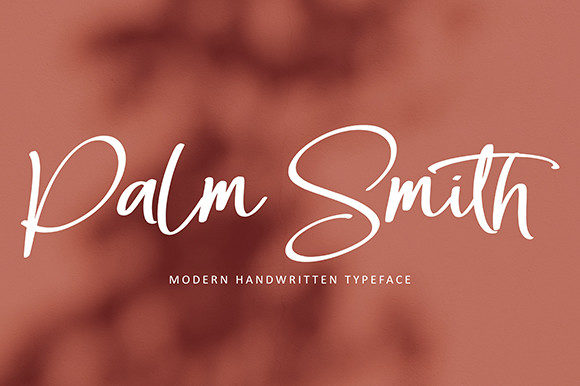
Palm Smith Font: Adding a Touch of Romance to Your Designs
In the world of typography, fonts play a crucial role in conveying the tone and personality of a design. Among the numerous fonts available, Palm Smith stands out as a charming and versatile handwritten font that can elevate your projects to a new level. In this article, we’ll explore the features, applications, and benefits of using Palm Smith font in your designs.
What is Palm Smith Font?
Palm Smith is a beautiful, enchanting handwritten font that exudes a sense of romance and elegance. Its unique and flowing script style makes it perfect for a wide range of applications, from greeting cards and invitations to headlines and titles. The font’s versatility and charm have made it a popular choice among designers and crafters.
Key Features of Palm Smith Font
- Handwritten style: Palm Smith boasts a genuine handwritten look that adds a personal touch to your designs.
- Romantic feel: The font’s flowing script style and delicate lines evoke a sense of romance and sophistication.
- Versatile: Palm Smith can be used for various projects, including greeting cards, headlines, titles, and more.
- Easy to read: Despite its ornate style, Palm Smith remains easy to read, making it perfect for both digital and print designs.
Applications of Palm Smith Font
Palm Smith’s versatility makes it suitable for a wide range of applications, including:
- Greeting cards: Add a touch of romance and elegance to your greeting cards, invitations, and thank-you notes.
- Headlines and titles: Use Palm Smith to create eye-catching headlines and titles for your blog posts, articles, and social media graphics.
- Branding and packaging: Incorporate Palm Smith into your brand identity and packaging design to convey a sense of sophistication and elegance.
- Digital designs: Use Palm Smith in your digital designs, such as website headers, email newsletters, and social media graphics.
Benefits of Using Palm Smith Font
Using Palm Smith font in your designs offers several benefits, including:
- Unique and distinctive look: Palm Smith’s handwritten style sets it apart from more traditional fonts, giving your designs a unique and distinctive look.
- Emotional connection: The font’s romantic feel can help create an emotional connection with your audience, making your designs more engaging and memorable.
- Flexibility: Palm Smith’s versatility makes it suitable for a wide range of applications, from digital designs to print materials.
Tips for Using Palm Smith Font Effectively
To get the most out of Palm Smith font, follow these tips:
- Use it sparingly: Use Palm Smith in moderation to avoid overwhelming your design. Balance it with simpler fonts to create visual interest.
- Pair it with complementary fonts: Pair Palm Smith with fonts that complement its style, such as serif or sans-serif fonts, to create a harmonious design.
- Adjust font size and color: Experiment with different font sizes and colors to create visual hierarchy and emphasize key elements.
- Consider the context: Consider the context in which you’ll be using Palm Smith. For example, it may be more suitable for romantic or creative projects.
Palm Smith font is a beautiful and versatile handwritten font that can add a touch of romance and elegance to your designs. Its unique and flowing script style makes it perfect for a wide range of applications, from greeting cards to headlines. By understanding its features, applications, and benefits, you can harness the power of Palm Smith to elevate your designs and connect with your audience.
- What is Palm Smith font? Palm Smith is a beautiful, enchanting handwritten font that exudes a sense of romance and elegance.